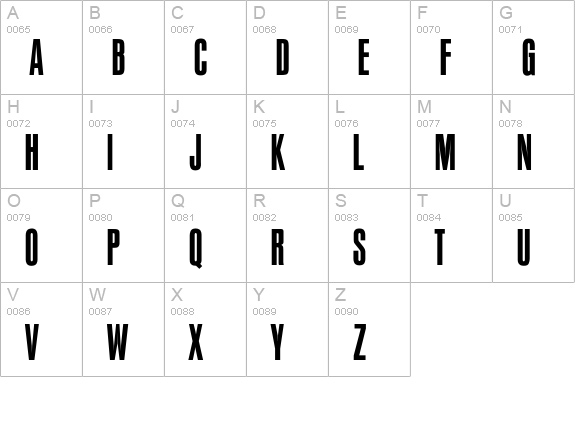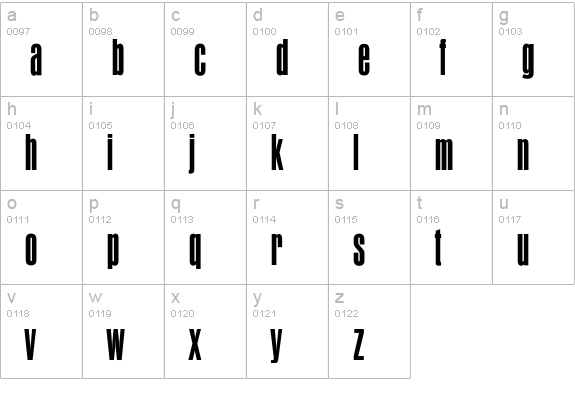
OPTIAuroraCondensed Font Details
OPTIAuroraCondensed is a sleek and modern font that exudes sophistication and elegance. Its condensed design makes it perfect for creating a clean and professional look in various design projects. The sharp lines and subtle curves of this font add a touch of refinement to any text, making it ideal for titles, headers, and branding materials. What sets OPTIAuroraCondensed apart is not only its stylish appearance but also the fact that it is available for free download at FontsMarket.com. This means that you can easily access this high-quality font without any cost, making it a valuable asset for designers, creatives, and anyone looking to elevate their projects with a touch of class. With its timeless appeal and versatile use, OPTIAuroraCondensed is a must-have font for anyone seeking a sophisticated and contemporary typeface for their design endeavors. Download it for free today at FontsMarket.com and elevate your projects with the elegance and style of OPTIAuroraCondensed.